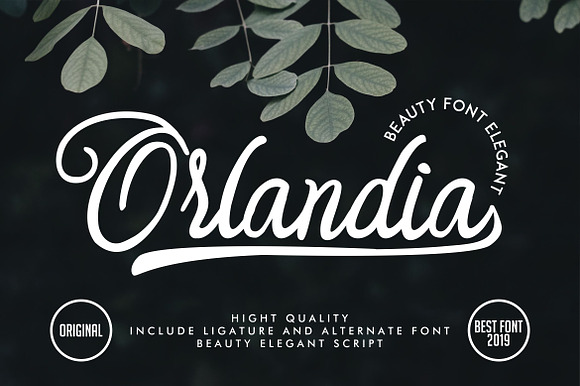
Orlandia Beauty Font Elegant
Orlandia Beauty Font Elegant by Vunira is a font selected for branding, posters, packaging, typography.
Why Orlandia Beauty Font Elegant is worth a look
Orlandia Beauty Font Elegant by Vunira fits naturally into Branding, posters, packaging, typography.